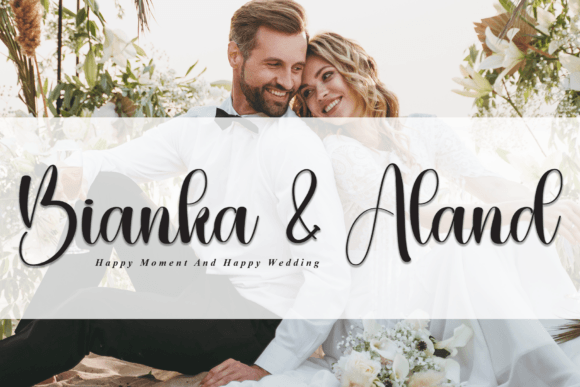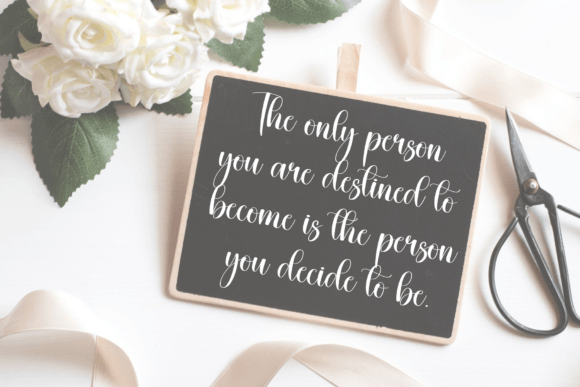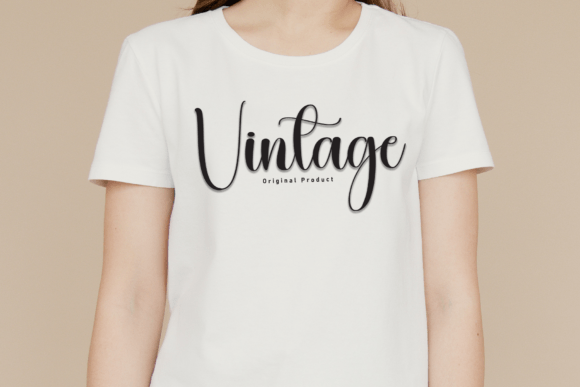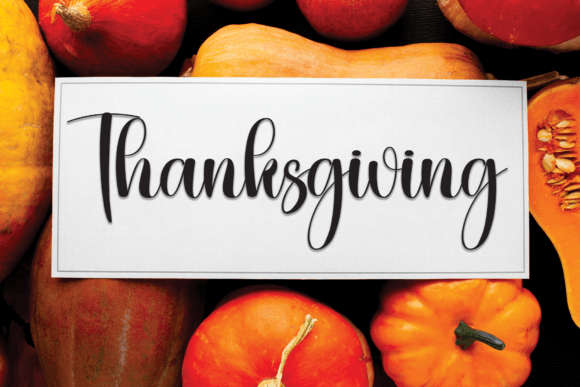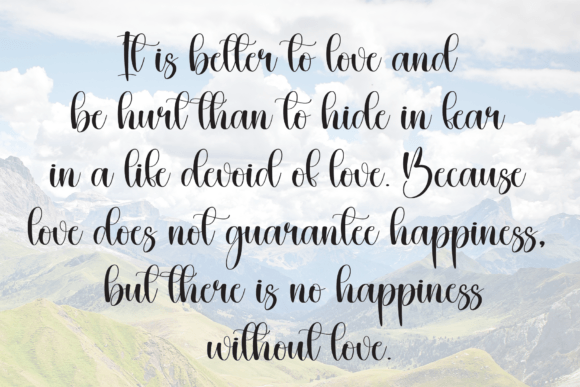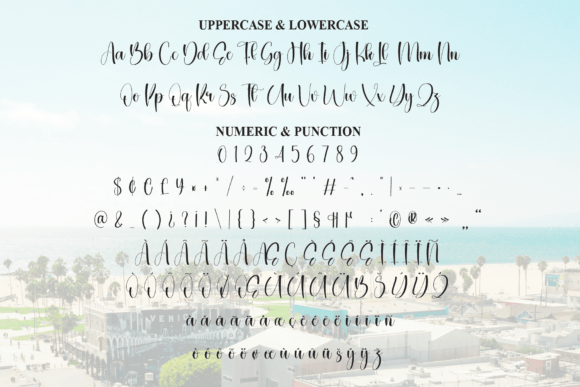
The California Dream: Elevating Designs with a Stylish Script Font
I still remember the design project that led me to discover the California font. I was working on a logo for a luxury brand, and I needed a font that exuded elegance and sophistication. After hours of scouring font libraries and testing various options, I stumbled upon California – a stylish and elegant script font that instantly captured the essence of the brand. Its smooth, flowing letters added a classy and creative touch to the design, making it an instant favorite.
An Honest Review of California Font
- ✨ Elegant and sophisticated design that’s perfect for luxury brands
- ✅ Smooth, flowing letters that add a creative touch to any design
- 💫 Highly versatile and suitable for various design applications, including logos, invitations, and headings
- 🎨 Supports OpenType features, glyphs, and stylistic alternates for added customization
While California font is an excellent choice for many design projects, there are a few quirks to be aware of:
- ⚠️ May not be suitable for body text or long-form content due to its script nature
- 🤔 Limited legibility at small font sizes, making it best suited for headlines or titles
The Story Behind California Font
California font was designed with the goal of creating a stylish, elegant script font that captures the essence of the Golden State. The designer aimed to craft a font that exudes sophistication, creativity, and a touch of California cool. While the designer’s identity may be unknown, their inspiration was likely drawn from the state’s iconic landscapes, from the sun-kissed beaches to the majestic mountains.
Q: What is California font best suited for?
A: California font is perfect for designs that require an elegant, sophisticated touch, such as logos, invitations, headings, and luxury brand identities.
Q: Can I use California font for body text?
A: While California font is beautiful, it’s not ideal for body text or long-form content due to its script nature and limited legibility at small font sizes.
Q: Does California font support OpenType features?
A: Yes, California font supports OpenType features, glyphs, and stylistic alternates, allowing for added customization and flexibility in your designs.